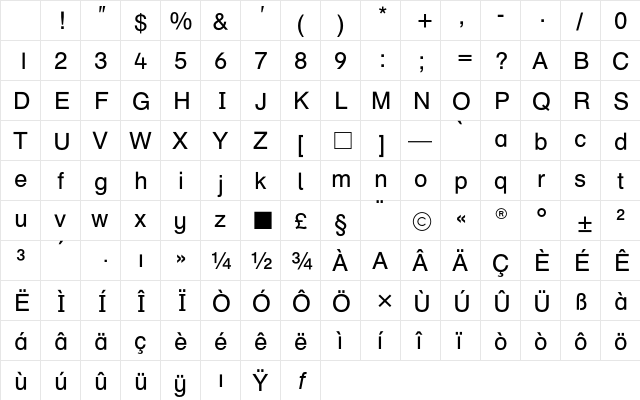
Complete SpecialAlphabets P09 glyph index. Displaying only characters natively supported by SpecialAlphabets P09 font.
SpecialAlphabets is a composed and adaptable typeface that performs quietly and consistently across a wide range of design contexts.